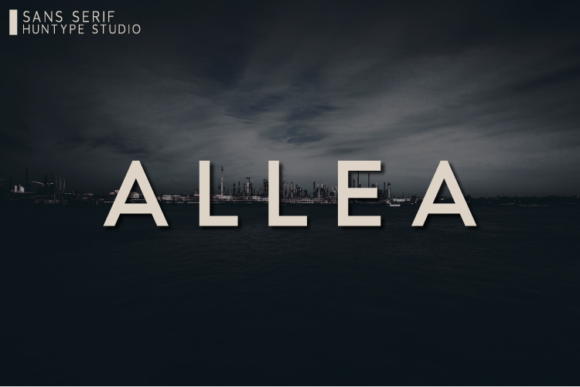
Welcome to the Allea Font experience - a journey that blends elegance, simplicity, and timeless charm. Dive into a collection of meticulously crafted sans serif fonts, unleashed by the creative genius of Huntype. Allea's enchanting allure is set to captivate your imagination and transform your designs into masterpieces.
With Allea, rediscover the art of typography. Its clean lines and graceful curves exude sophistication, adding a touch of luxury to your creations. Unleash your creativity on logos, branding, wedding invitations, and art prints - the possibilities are endless. The versatility of Allea knows no bounds, making it the perfect choice for logos, web design, branding, and countless other creative endeavors.
Immerse yourself in the beauty of Allea's flawless letterforms, expertly shaped to create a symphony of visual harmony. Its flowing strokes and delicate details will effortlessly elevate your designs, leaving a lasting impression on your audience. Whether you're a seasoned designer or just starting your creative journey, Allea is your perfect companion, ready to unlock your true artistic potential.